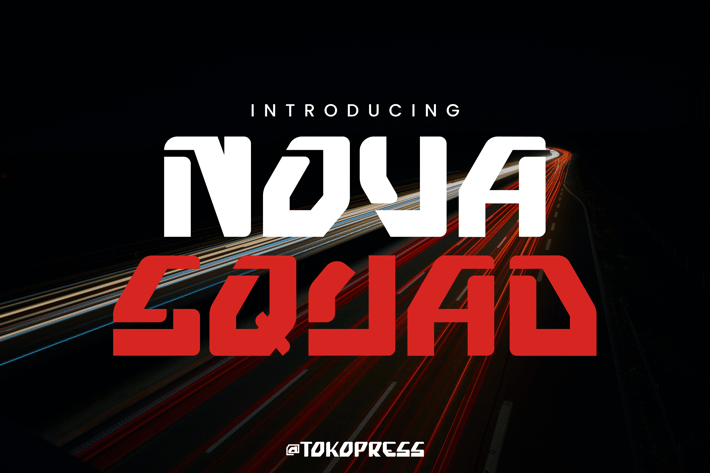
NOVA SQUAD - futuristic font
NIVA SQUAD- Futuristic Font
Nova Squad is a futuristic display font with angular, geometric forms and high-impact stroke contrast—designed for creators who need high-velocity energy and bold presence. Inspired by speed, tech, and racing culture, its letterforms have sharp terminals, strong horizontal cuts, and industrial edges that scream motion and control.
Whether you're creating an arcade game interface, a racing poster, or a bold YouTube thumbnail, Nova Squad delivers aggressive style with a clear futuristic edge. Its blocky, uppercase-driven structure and clean visual rhythm keep it legible even in dynamic environments.
Built for branding that demands attention, Nova Squad fits naturally in fast-paced design spaces—from eSports titles, arcade logos, tech product packaging, to car culture posters and sci-fi UI kits. The font’s electric vibe speaks to adrenaline-driven aesthetics and appeals to buyers who want to make a striking, modern statement.
Key Features
Why You’ll Love Nova Squad:
- High-impact futuristic forms ideal for display use
- Built-in attitude with bold angles and streamlined shapes
- Balanced spacing for legibility in motion and digital formats
- Modern geometric construction with a heavy, confident weight
Perfect for:
- Gaming UI & HUD designs
- Racing, car culture, and motorsport branding
- Streaming overlays & esports event posters
- Futuristic tech branding, sci-fi movie titles